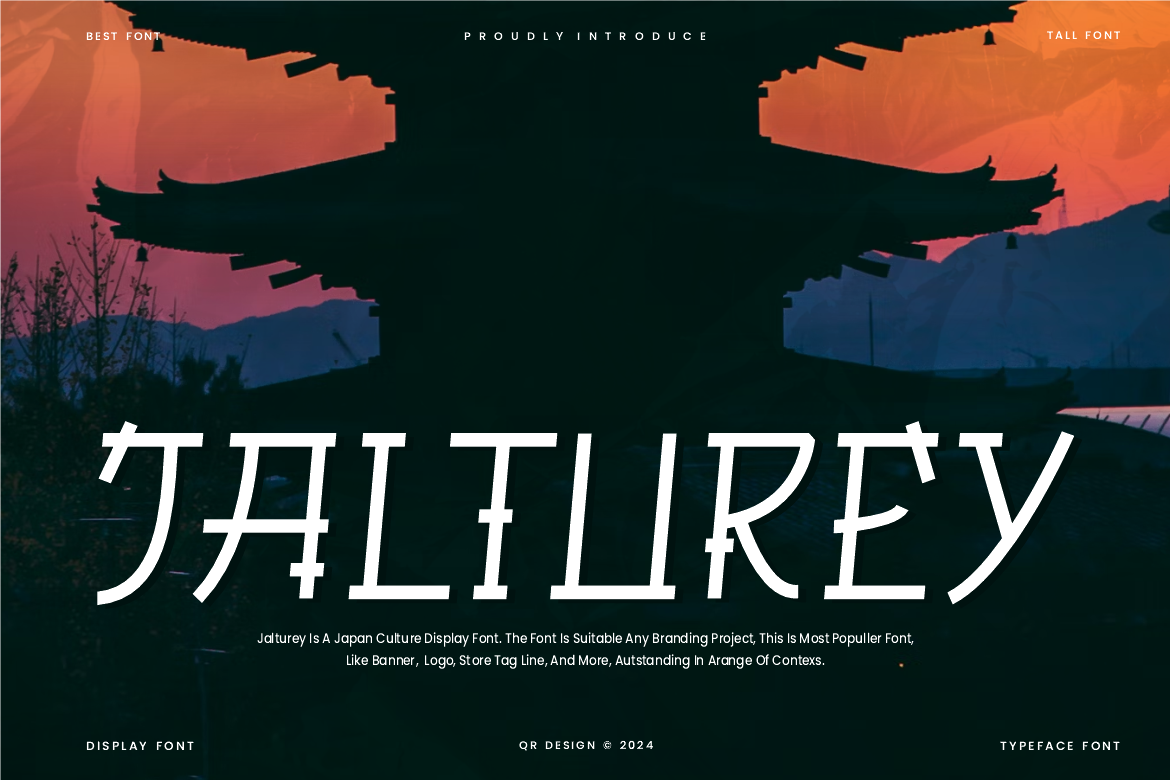
Jalturey - Japanese Fonts
Jalturey Font is a japanese and authentic display font. The font is suitable for any branding project like poster, logo, sport, and many more. Outstanding in a wide range of contexts.